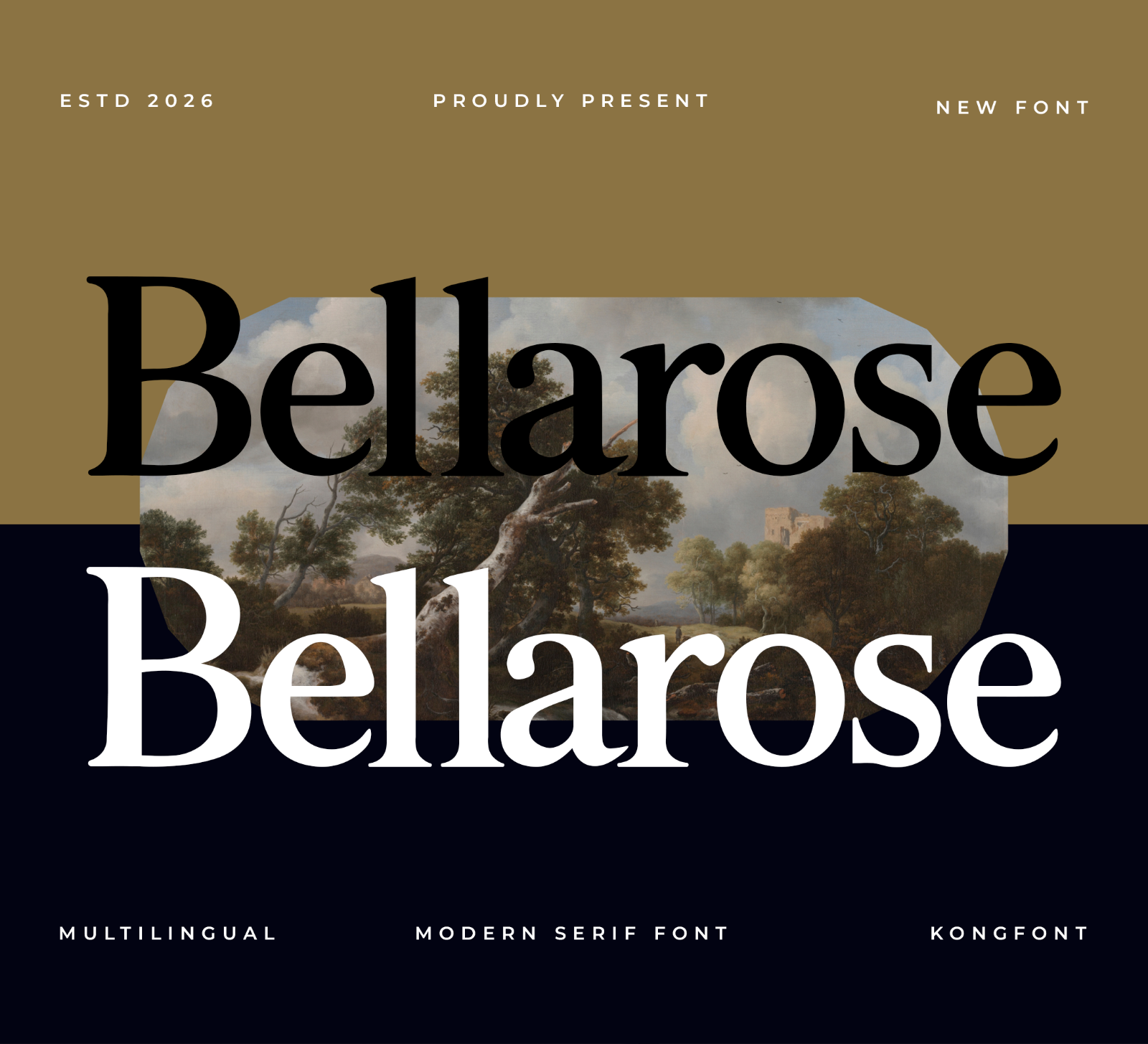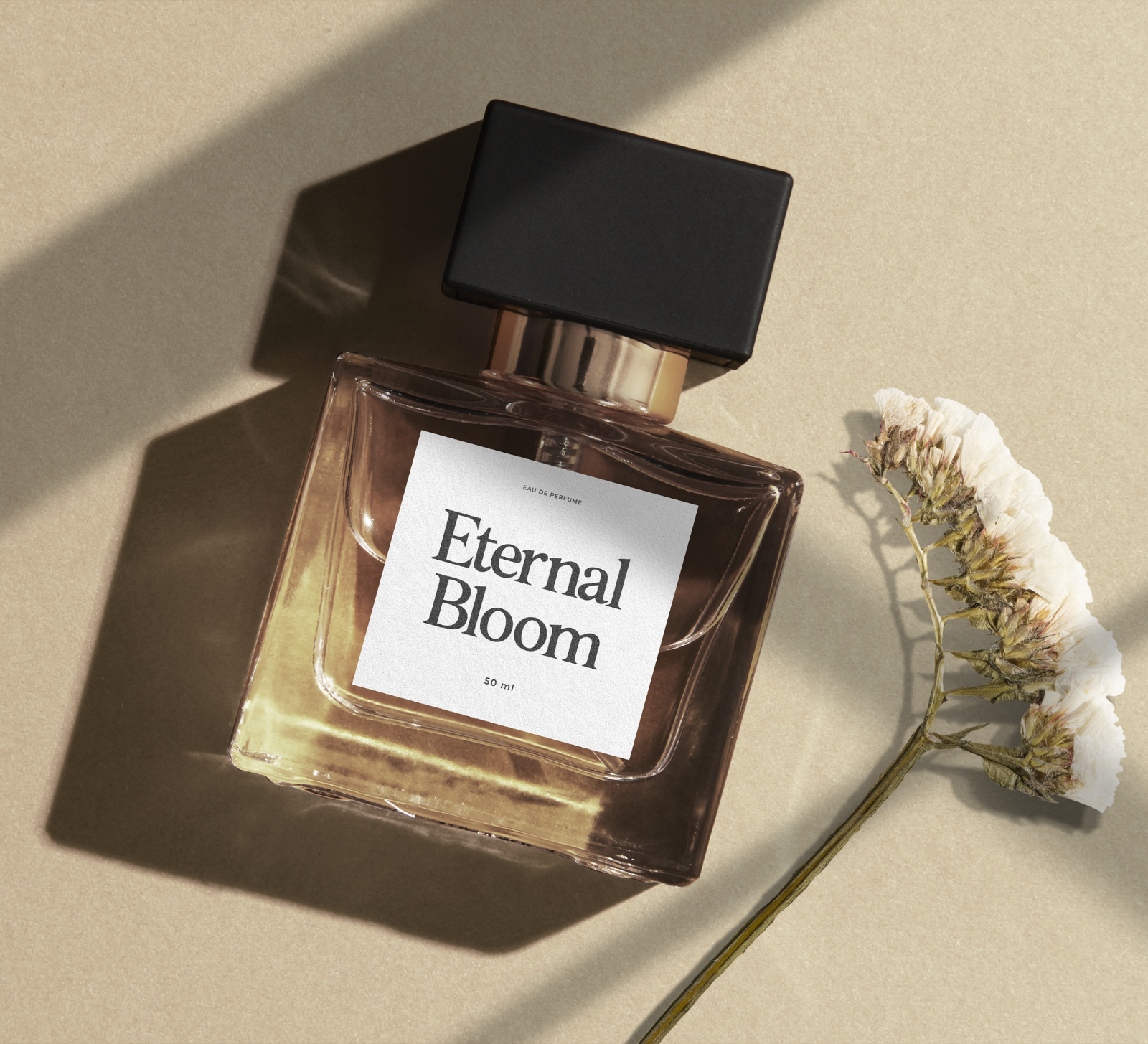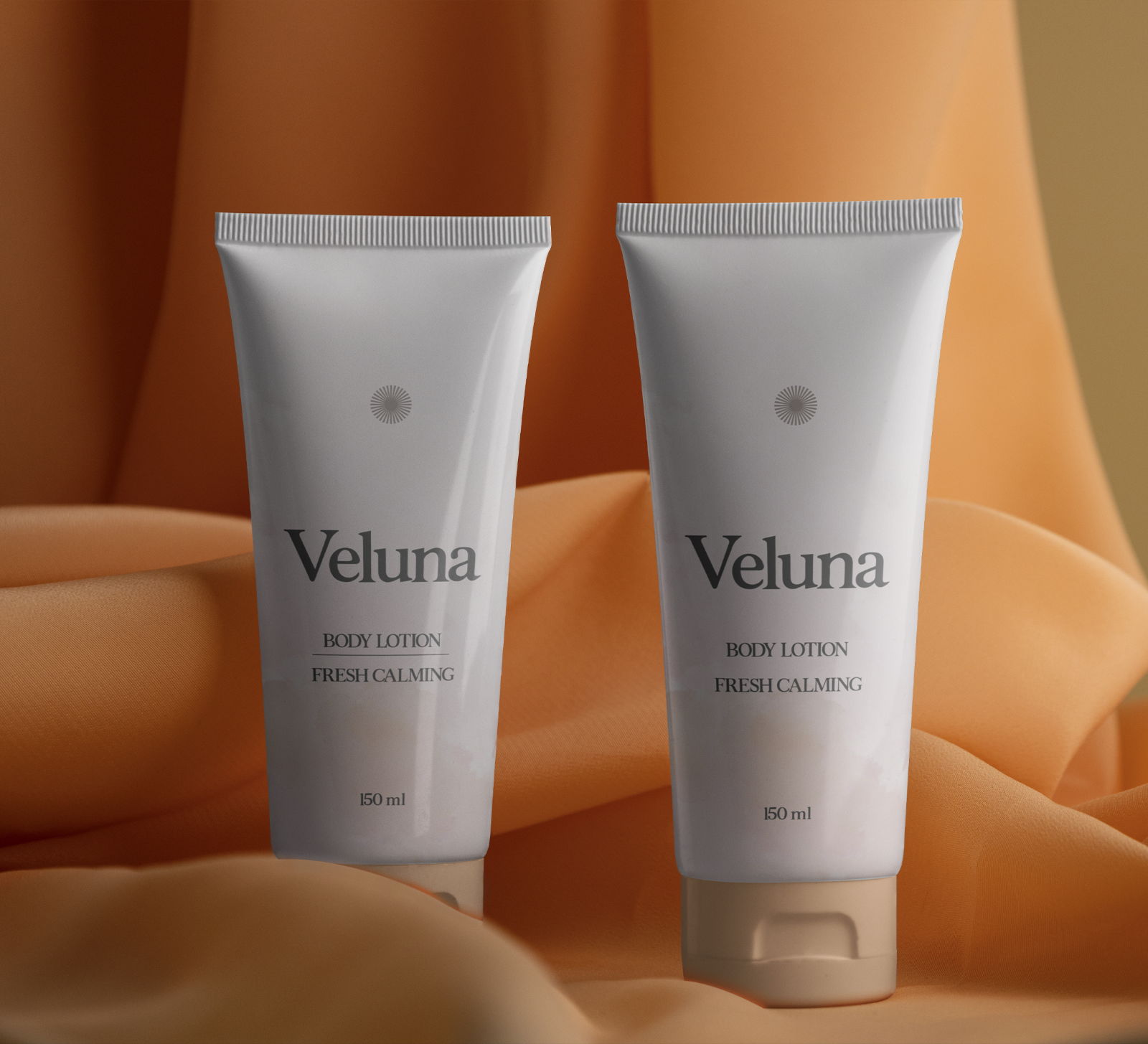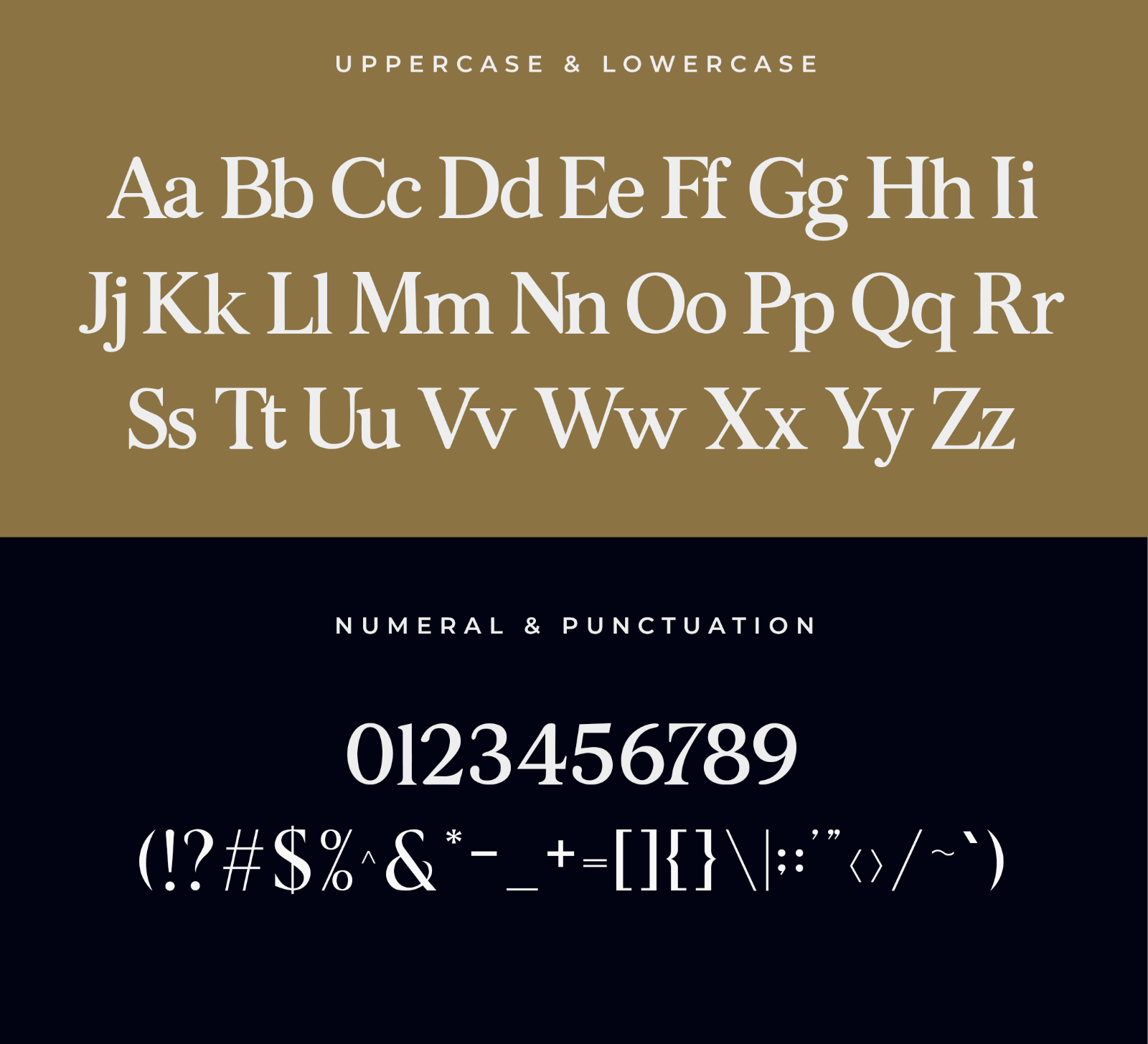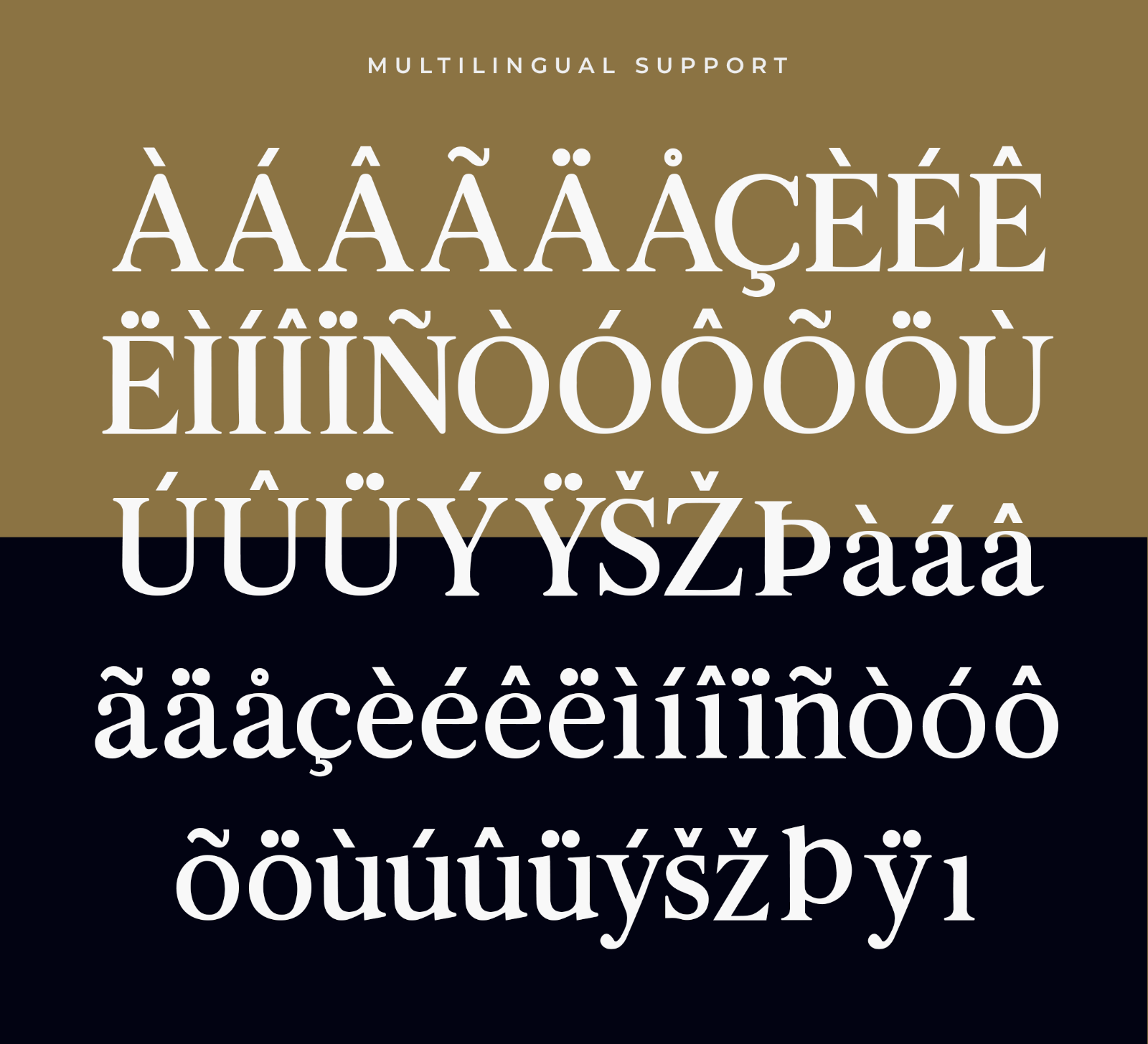
Bellarose is a modern serif font with bold letterforms, elegant curves, and a clean contemporary style. Its refined appearance makes it perfect for designs that need a stylish, classic, and professional look.
• Branding
• Logos
• Business cards
• Blog headers
• Quotes
• Editorial titles
• Packaging
• Creative typography